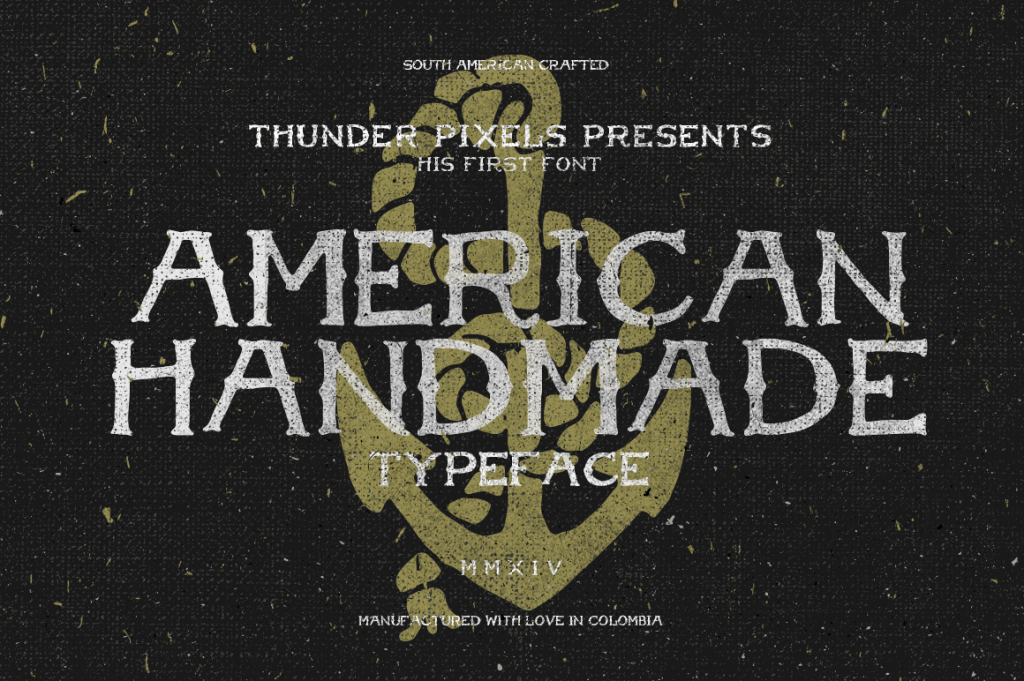
American Handmade Typeface by ThunderPixels Store.
Recommendations for use:
1. Use uppercase or lowercase totally writing any sentence
2. This font is intentionally made to be deformed, which will contribute to providing a handmade appearance in every sentence and make it look different.